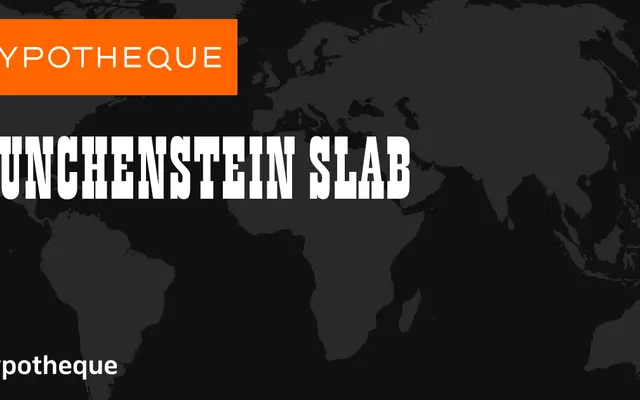
Munchenstein Slab specimen from Typotheque
A slab serif system from Typotheque with dedicated text and display subfamilies, colour font support, and an unusual backslanted axis alongside conventional slanted italics.
The family splits into three subfamilies: Munchenstein Slab as a standalone regular and colour variant, Munchenstein Text covering Light through Black with slanted styles, and Munchenstein Display running from Hairline to Black with both slanted and backslanted cuts. The backslanted option is a distinctive feature rarely seen in slab families, giving the display range an expressive, unconventional character. A colour font variant adds further depth for headline and identity use.
A slab serif family with distinct text and display optical sizes, including a colour font variant and both slanted and backslanted styles across a wide weight range.